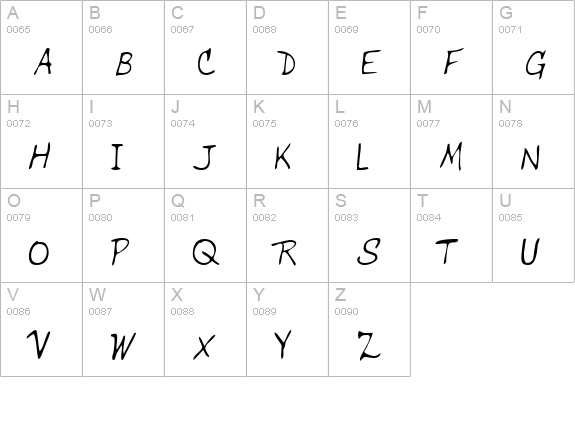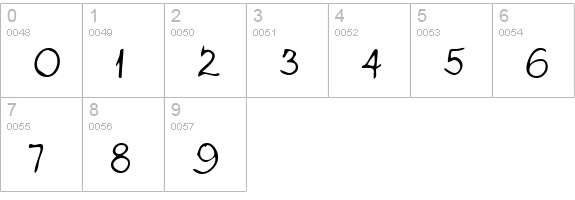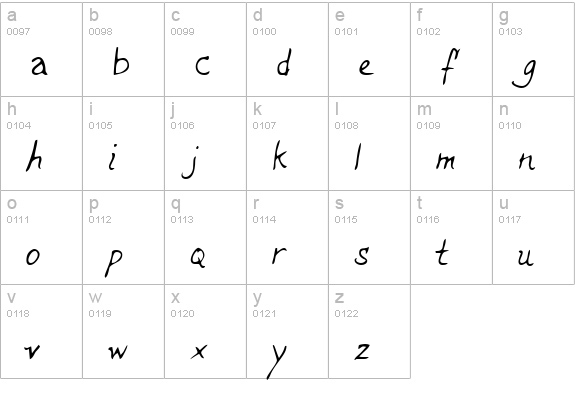
QuinnsHand Regular Font Details
QuinnsHand Regular is the standard, neutral variant in the QuinnsHand typeface family \xE2\x80\x94 well suited to general body text, paragraphs, and standard typographic work.
Introducing QuinnsHand Regular, a captivating and versatile font that will add a touch of elegance to any project. Its flowing curves and charmingly handwritten style make it perfect for invitations, logos, and branding materials. With its effortless grace and timeless appeal, QuinnsHand Regular is sure to leave a lasting impression. This font offers a unique blend of sophistication and playfulness, making it suitable for a wide range of applications. Whether you're designing wedding invitations, crafting a beautiful logo, or creating eye-catching marketing materials, QuinnsHand Regular will effortlessly elevate your design to new heights. The beauty of QuinnsHand Regular lies not only in its impeccable design but also in its accessibility. It is freely available to download at FontsMarket.com, ensuring that this remarkable font can be enjoyed by designers, creatives, and enthusiasts alike. With just a few clicks, you can unlock the endless possibilities that QuinnsHand Regular has to offer. Featuring a wide range of characters, including uppercase letters, lowercase letters, numbers, and punctuation marks, QuinnsHand Regular provides all the tools you need to bring your vision to life. Its versatility allows for seamless integration in various design projects, ensuring that your work stands out from the crowd. So why wait? Discover the beauty of QuinnsHand Regular today and let your creativity soar. Download this stunning font for free at FontsMarket.com and embark on a design journey filled with elegance, charm, and unlimited possibilities.